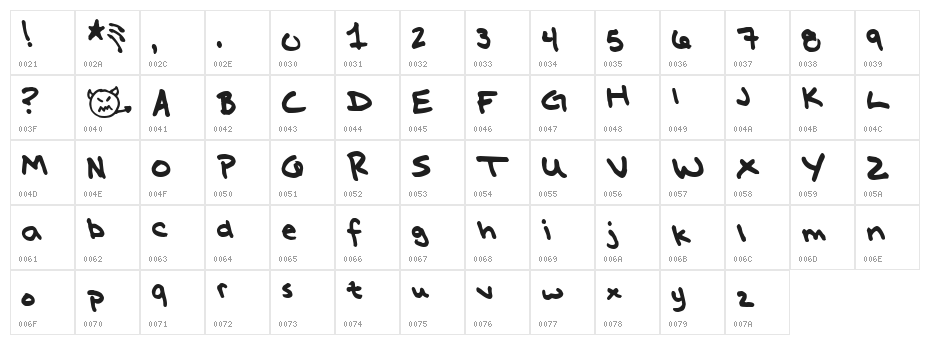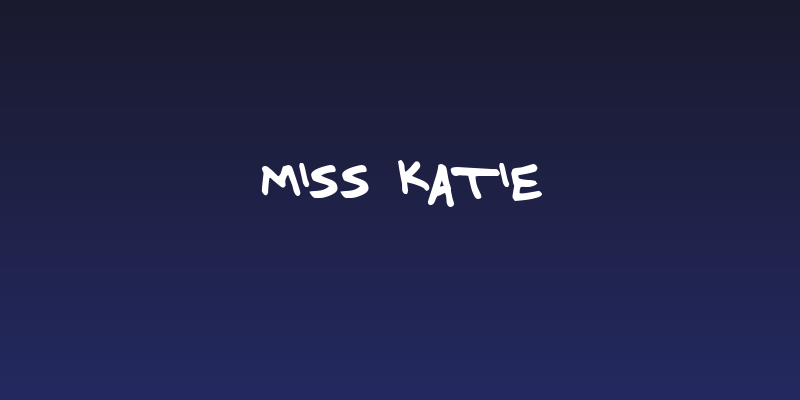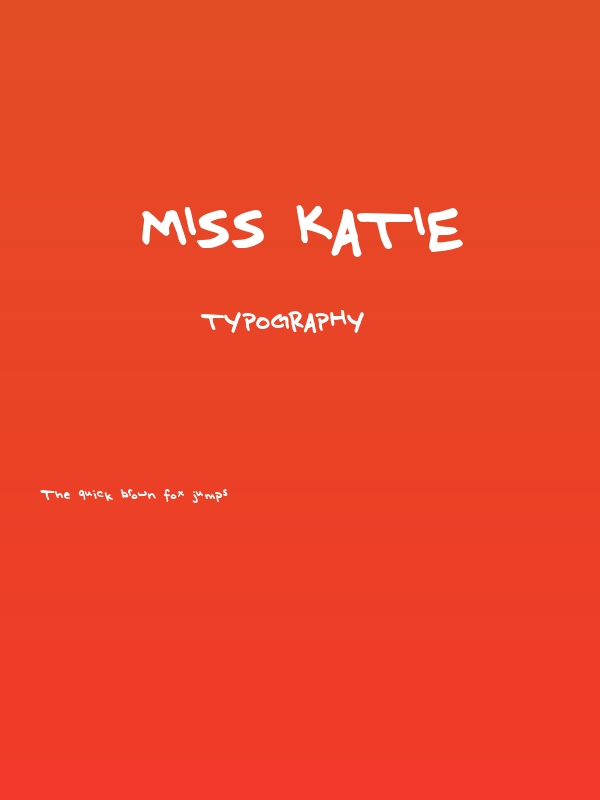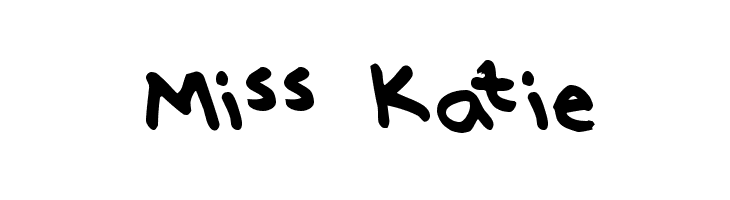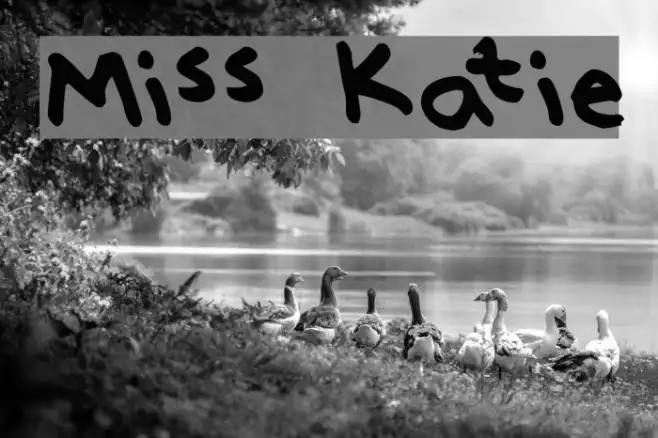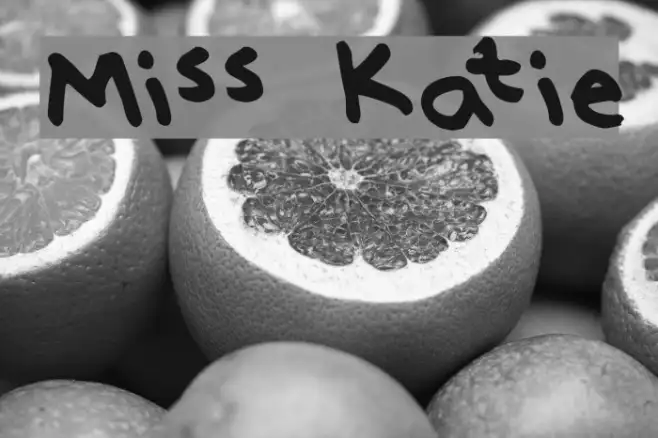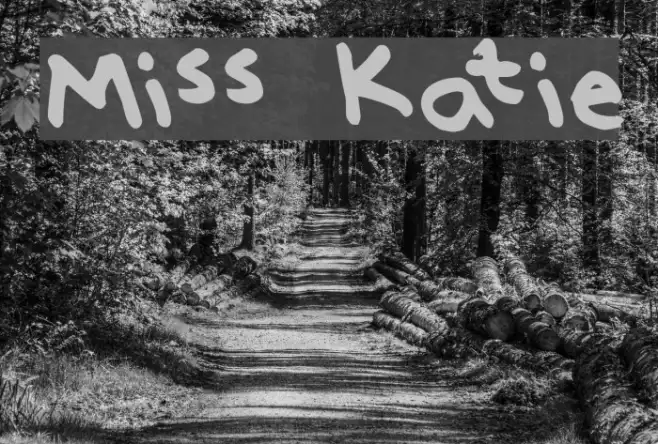
Miss Katie Font
Miss Katie Description
This playful and energetic font features a handwritten style with bold, irregular strokes that give it a lively and informal appearance. The characters are slightly tilted, adding to the dynamic feel, and the overall design is reminiscent of casual doodles or notes. The uppercase and lowercase letters maintain a consistent style, with rounded edges and varying stroke widths that create a sense of movement. Numbers and special characters are equally expressive, ensuring a cohesive look across all elements. This font is perfect for projects that require a personal touch or a fun, approachable vibe.